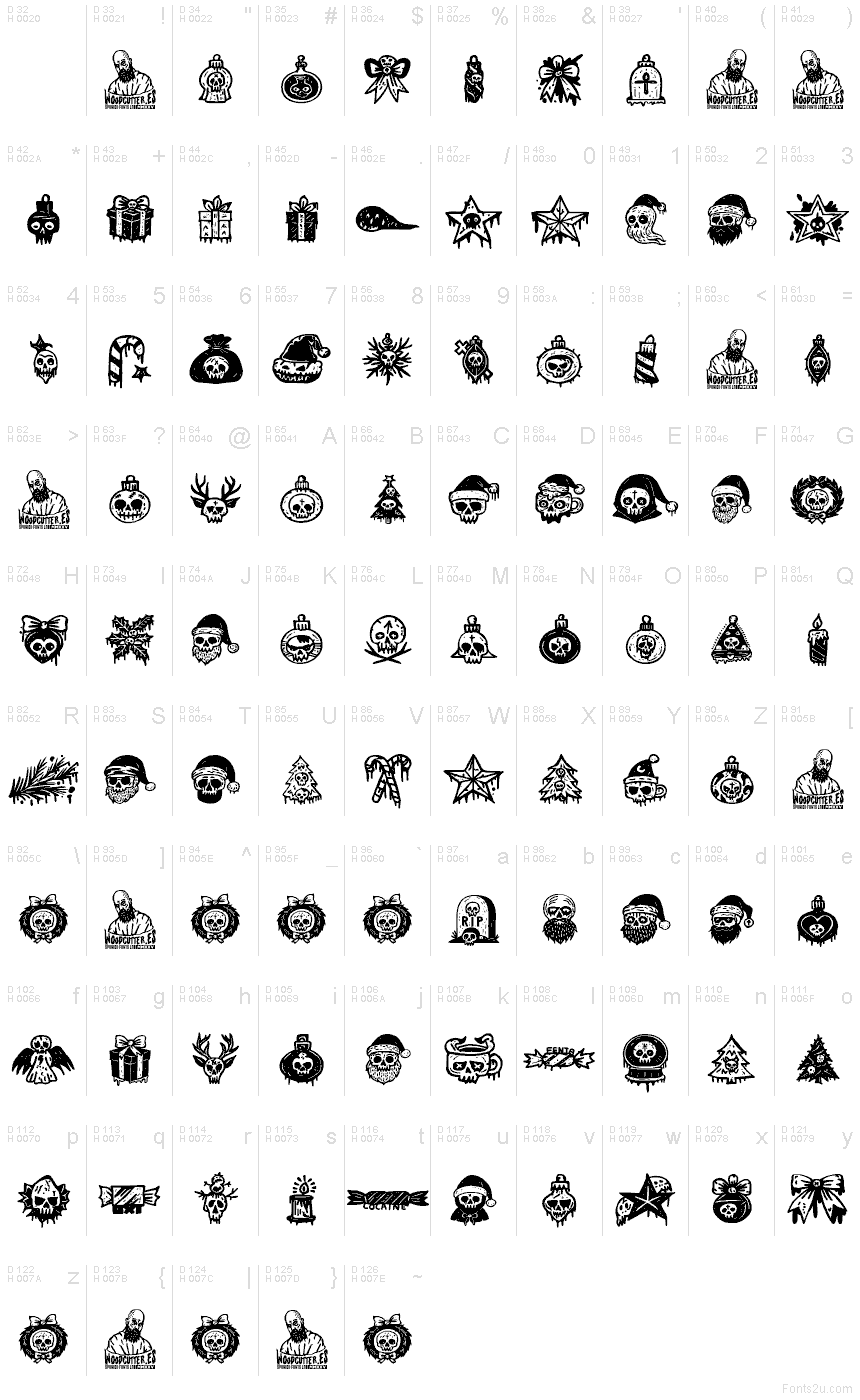
Dark Christmas
Dark Christmas font by Woodcutter is a free horror dingbat typeface that twists cozy holiday icons into something gleefully macabre. Gravestones, cracked skulls in Santa hats, haunted ornaments, and occult snow globes line up in inky black silhouettes, like a row of cursed carolers. The shapes are bold, chunky, and slightly distressed, so they still read clearly even when shrunk or layered over textured backgrounds.
Using Dark Christmas, you can turn greeting cards, party flyers, stickers, streaming overlays, merch, and social posts into a wicked seasonal spectacle. This free font shines on posters for spooky Christmas events, goth advent calendars, horror podcasts, and alternative gift tags. Try pairing these dingbats with a clean sans serif set in all caps, letting the icons act as loud visual anchors while the text stays sharp and readable.
Dark Christmas.